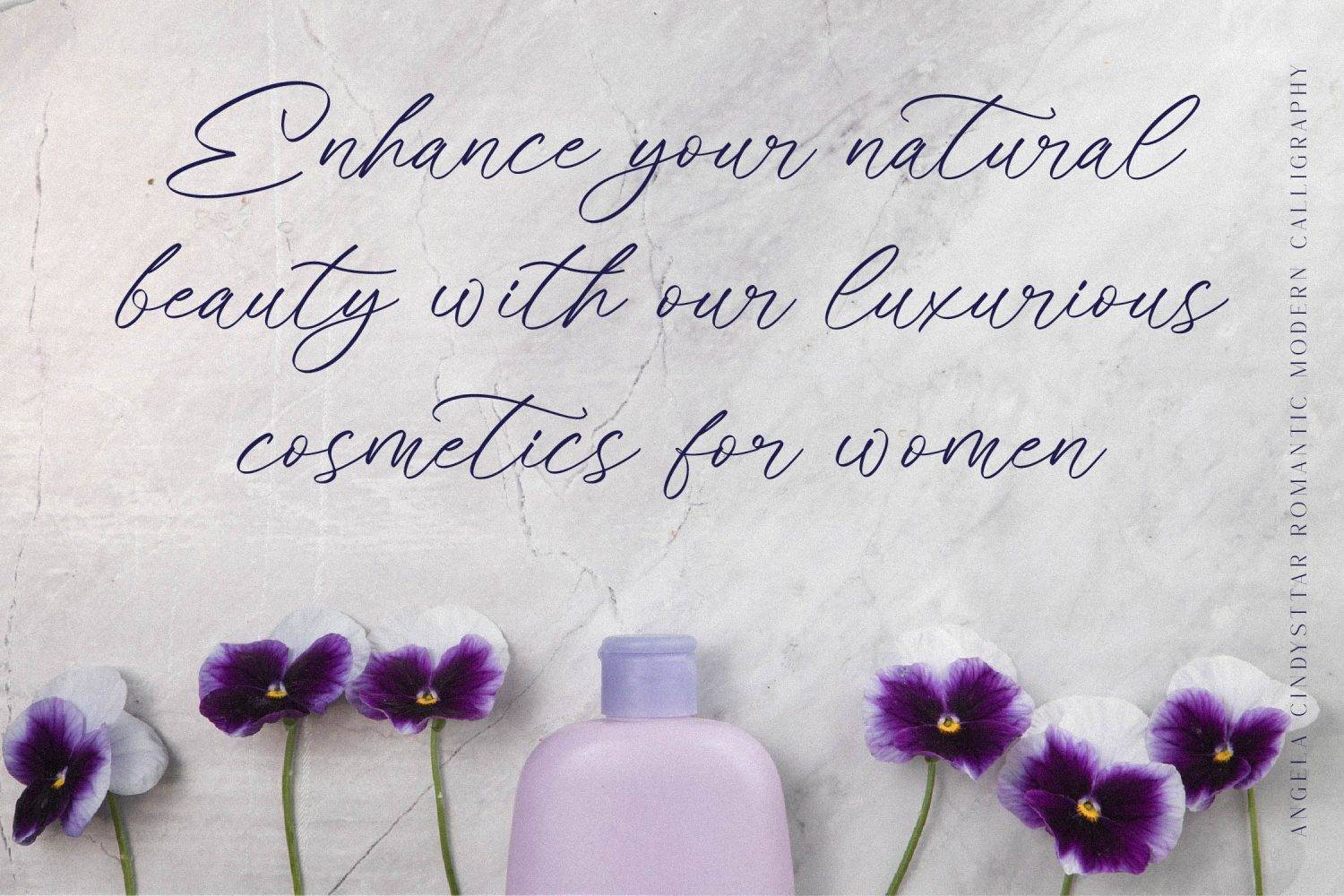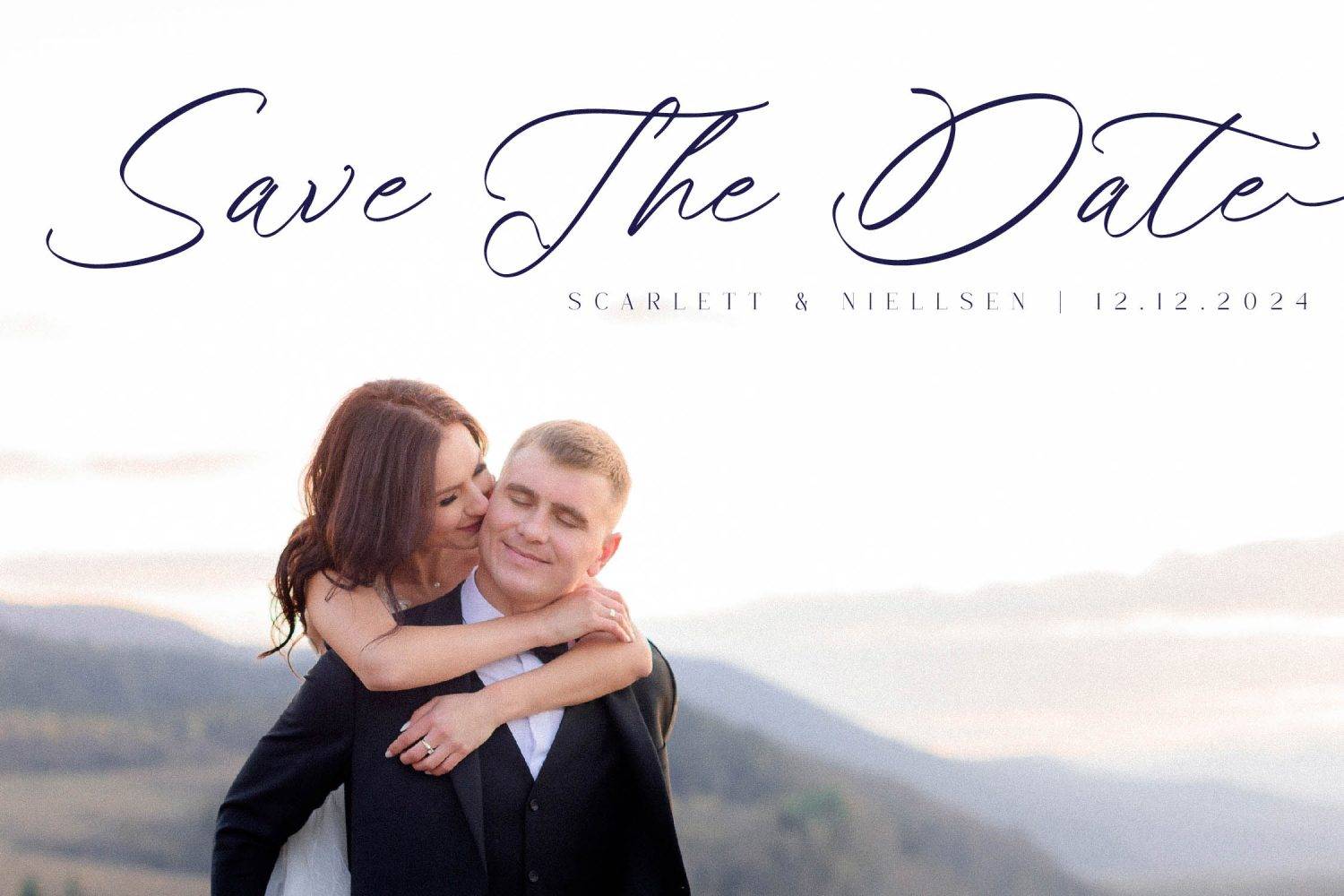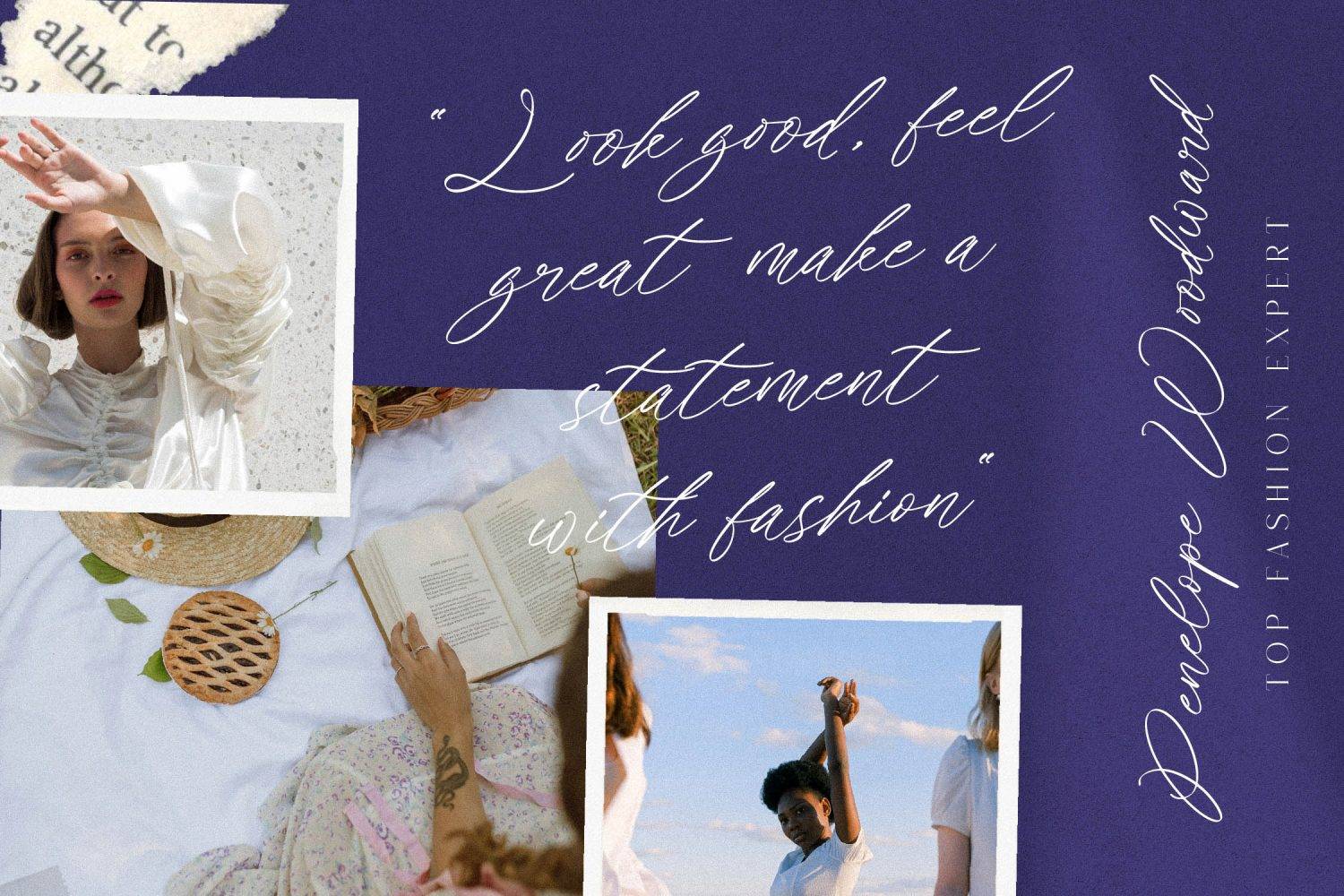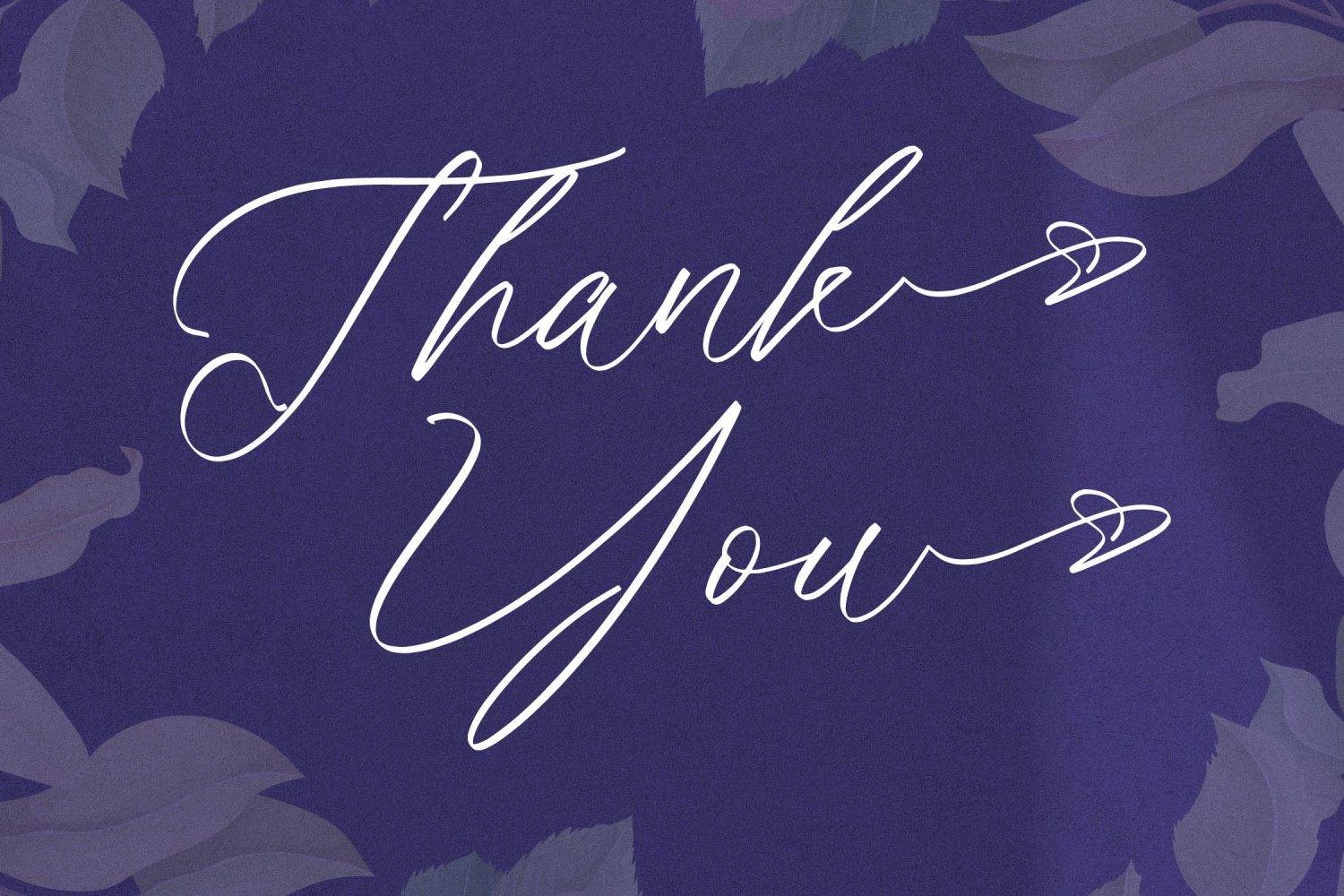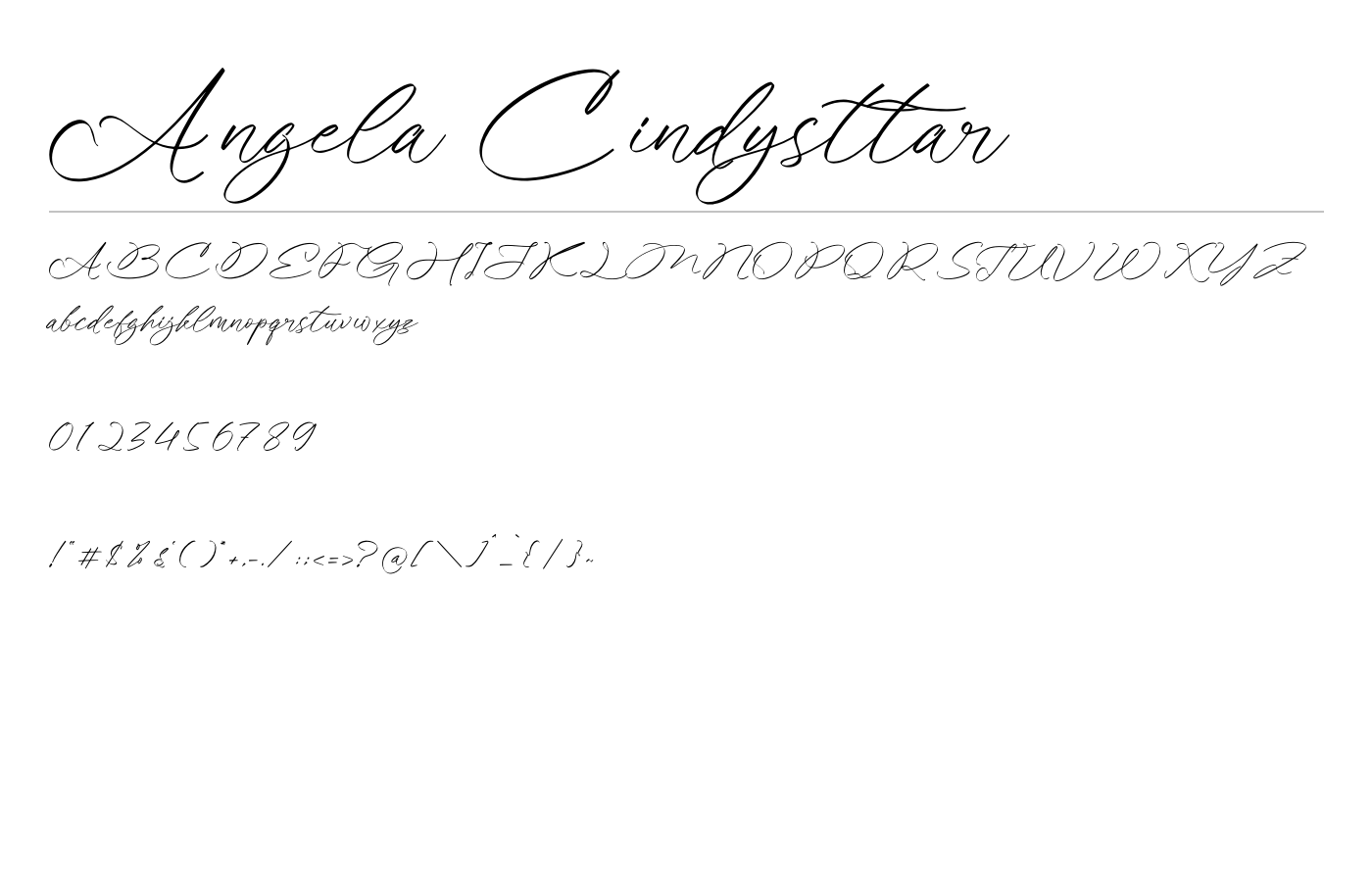
Angela Cindysttar is an elegant script font characterized by delicate, flowing strokes and a graceful, handwritten style. Its slender, high-contrast lines and refined curves make it ideal for sophisticated branding, invitations, and decorative headlines where a touch of luxury and femininity is desired. This font works beautifully in designs that aim to convey elegance and charm with a personal, artistic flair.
Angela Cindysttar Font
About Angela Cindysttar Font